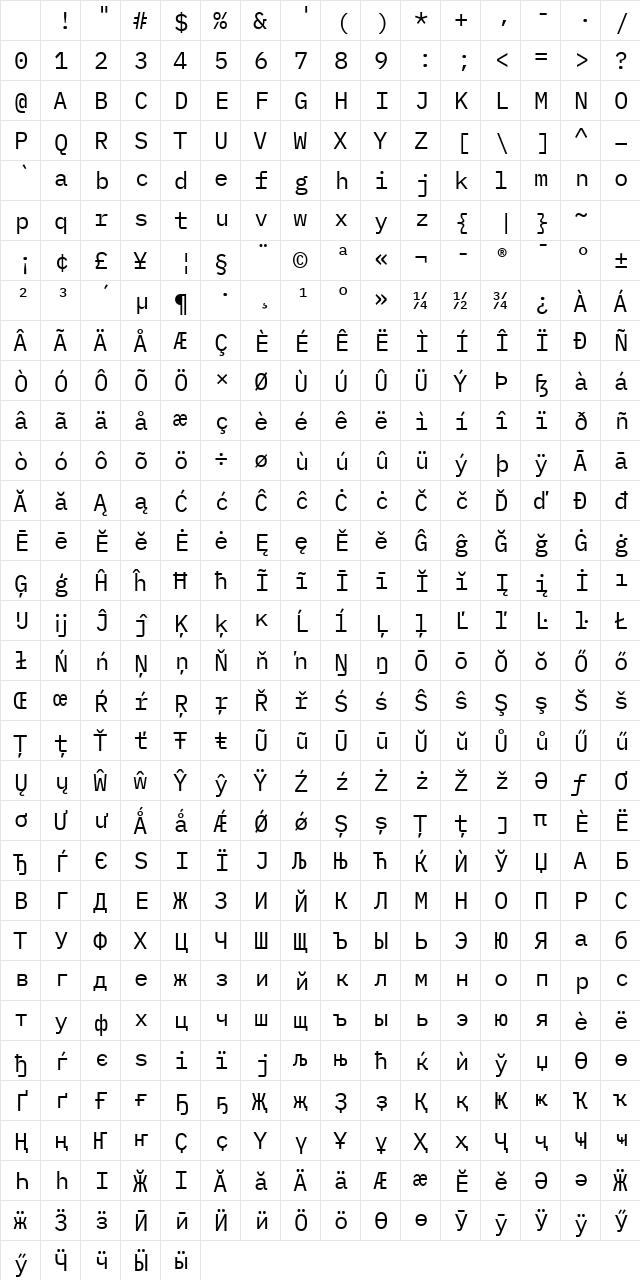
Complete BlexMono Nerd Font Book glyph index. Displaying only characters natively supported by BlexMono Nerd Font Book font.
BlexMono Nerd Font uses fixed-width spacing throughout, giving it the structured, systematic character associated with coding environments and technical documentation.
Pro Tip: Use BlexMono Nerd Font with slightly increased line-height for extended reading - fixed-width spacing can feel dense in longer passages without extra breathing room.